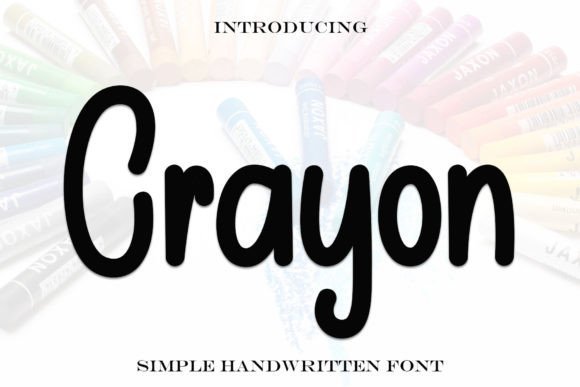
The Magic of the Crayon Font: Bringing Joy to Your Designs
Have you ever sat at your desk, surrounded by colorful markers and paints, and felt an overwhelming urge to create something festive and fun? That’s exactly the feeling the Crayon Font evokes. This delightful typeface is designed to capture the spirit of the holiday season, with its playful decorations and whimsical flair.
Whether you’re a graphic designer, a crafty crafter, or simply a lover of all things merry and bright, the Crayon Font is a valuable addition to your toolkit. With its PUA coding, you’ll have access to a world of amazing glyphs and ligatures that will add a touch of charm to your designs. Perfect for greeting cards, gift labels, and holiday-themed projects, the Crayon Font brings a cheerful and nostalgic atmosphere to your words.
Crayon Font Key Features
- Unique Characteristics: Crayon Font features a distinctive, hand-drawn look with subtle imperfections and texture, giving it a warm and inviting feel.
Crayon Font Review
I recently had the chance to work with the Crayon Font, and I must say it’s a unique addition to any design project. ✨ Here are some of the things I like about it:
- Whimsical feel – The Crayon Font has a playful, childlike quality that can add a touch of nostalgia and whimsy to your designs.
- Handwritten feel – The font’s imperfections and variations in size and spacing give it a handwritten feel that can be quite charming.
- Fun for titles – The Crayon Font is perfect for use in titles, headings, and other display typography where you want to add a bit of personality.
However, like any font, the Crayon Font has its limitations. ⚠️ Here are some things to keep in mind:
- Not ideal for body text – The font’s imperfections and variability in size and spacing can make it difficult to read in large blocks of text.
- May not be suitable for formal projects – The Crayon Font’s playful, whimsical feel may not be the best choice for formal or professional projects.
Overall, the Crayon Font is a fun and creative addition to any design project. While it may not be suitable for all projects, it’s a great choice for titles, headings, and other display typography where you want to add a bit of personality.
The Crayon Font is perfect for:
- Children’s books and educational materials.
- Playful advertisements and marketing materials.